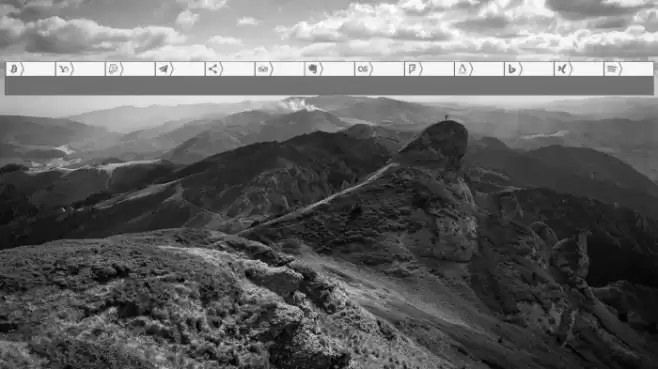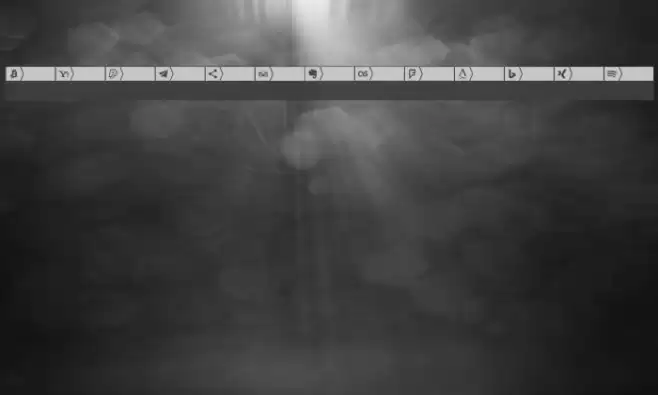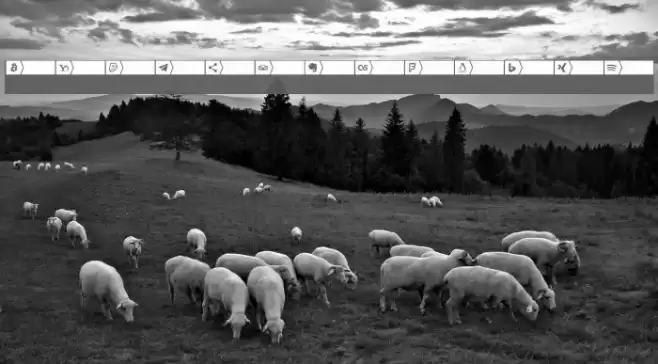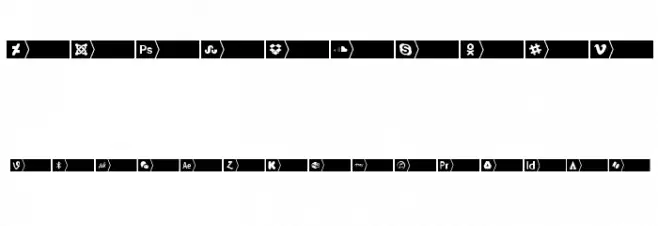
Font Networks Color Font
Font Networks Color Description
A pictogram font consisting of various social media and network icons, each enclosed in a solid rectangular or square background, rendered in a monochrome, high-contrast style. The icons are simplified and easily recognizable, with consistent line thickness and geometric shapes.
Monochrome icon font featuring popular social media and network logos from Uncategorized fonts.
- Proposed Projects: Web and app UI design, social media buttons, infographics, presentations, digital dashboards.
- Overall Style: Modern, Minimalist, Functional
- Use Case: Icons, UI elements, Buttons, Navigation, Branding